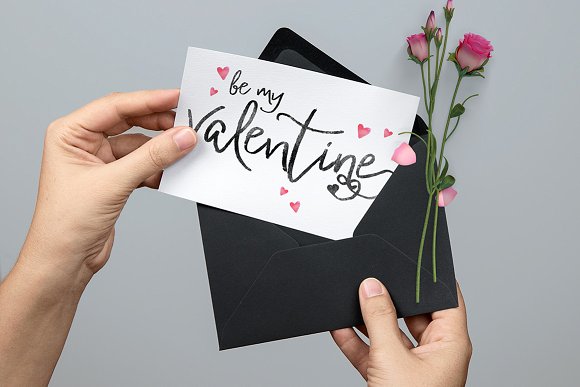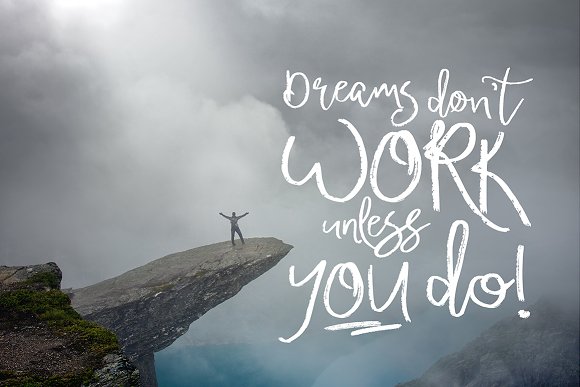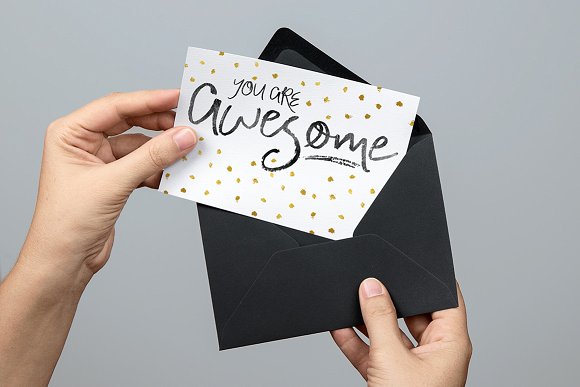
Affectionate Font: A Beautiful Handcrafted Typeface by Creativeqube
Are you looking for a font that can add a touch of warmth and personality to your designs? Look no further than Affectionate, a stunning handcrafted font created by Creativeqube. In this article, we’ll take a closer look at what makes Affectionate so special and why it’s a must-have for designers and crafters alike.
What is Affectionate Font?
Affectionate is a beautiful handcrafted font designed by Creativeqube, a team of talented designers who specialize in creating unique and creative typefaces. This font is perfect for anyone looking to add a personal touch to their designs, whether it’s for a branding project, a craft project, or simply for personal use.
Key Features of Affectionate Font
Affectionate font has several key features that make it stand out from other fonts. Here are a few:
- Handcrafted with love: Affectionate is a truly handcrafted font, with each letter carefully designed and crafted to ensure a personal and unique feel.
- Beautiful and elegant: The font has a beautiful, elegant feel that’s perfect for a wide range of design projects.
- High-quality design: The font is designed with high-quality in mind, ensuring that it looks great in any size or resolution.
- Easily readable: Despite its elegant feel, Affectionate is still easily readable, making it perfect for body text as well as headlines.
What Can I Use Affectionate Font For?
Affectionate font is incredibly versatile and can be used for a wide range of design projects, including:
- Branding and logos: The font’s unique and elegant feel makes it perfect for branding and logo design projects.
- Crafting and DIY projects: Affectionate is also great for crafters and DIY enthusiasts who want to add a personal touch to their projects.
- Wedding and event planning: The font’s romantic and elegant feel makes it perfect for wedding and event planning projects.
- Graphic design: Affectionate can be used for a wide range of graphic design projects, from brochures and flyers to posters and banners.
Why Choose Affectionate Font?
There are many fonts available that claim to be elegant and beautiful, but Affectionate stands out from the crowd. Here are a few reasons why:
- Unique and original: Affectionate is a truly unique and original font that’s sure to make your designs stand out.
- High-quality design: The font is designed with high-quality in mind, ensuring that it looks great in any size or resolution.
Affectionate font is a beautiful handcrafted typeface that’s perfect for designers and crafters alike. With its elegant feel, high-quality design, and ease of use, it’s a must-have for anyone looking to add a personal touch to their designs. Whether you’re working on a branding project, a craft project, or simply want to create something special, Affectionate is the perfect choice.